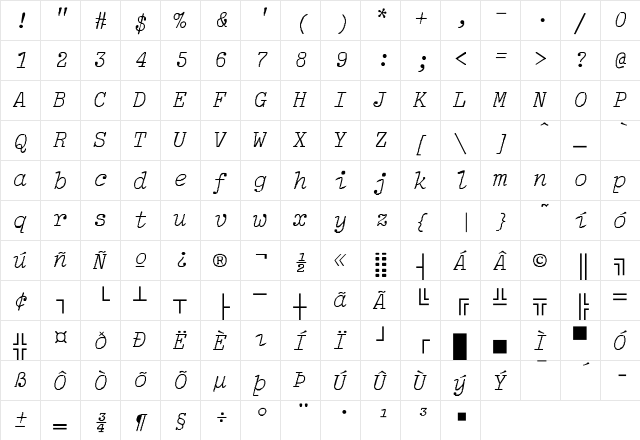
LightItalic-Light-Italic Regular
Design Context for LightItalic-Light-Italic Typeface
LightItalic-Light-Italic is a composed and adaptable typeface that performs quietly and consistently across a wide range of design contexts. Its italic angle brings a sense of urgency and motion to the letterforms. The delicate stroke weight brings airiness and refinement to layouts.